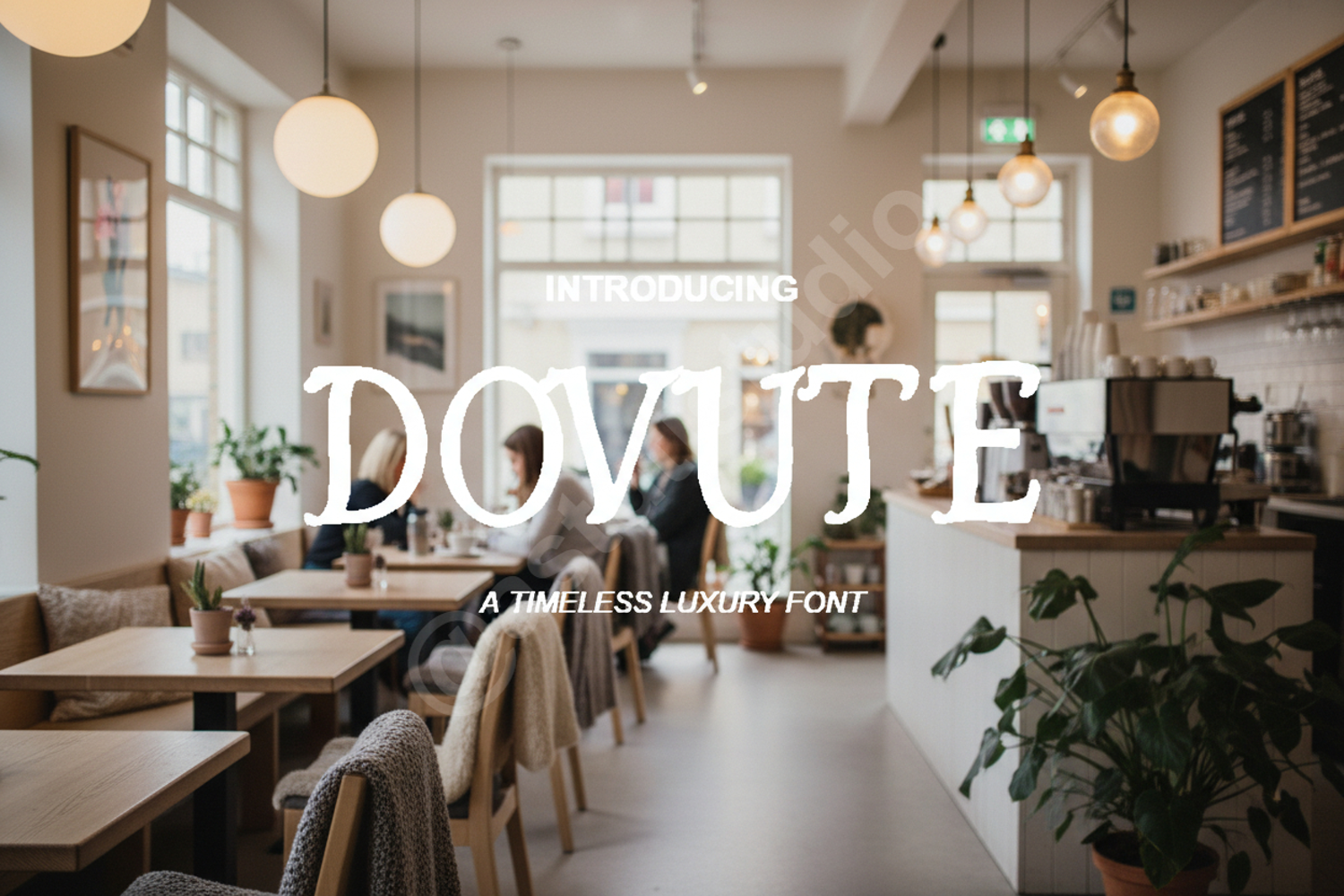
Dovute - Elegant Modern Serif Typeface
Dovute
Dovute is a premium serif typeface meticulously crafted for designers who demand a perfect balance between classic sophistication and contemporary flair. With its refined proportions and clean lines, Dovute brings a sense of high-end luxury and timeless appeal to any creative project.
- Branding and Visual Identity: Create impactful logos and cohesive brand systems that resonate with luxury.
- Editorial Design: Enhance magazine layouts, book covers, and high-fashion spreads with sophisticated typography.
- Wedding Stationery: Add a touch of elegance to invitations, save-the-dates, and event programs.
- Social Media Graphics: Elevate your digital presence with premium-looking quotes and promotional content.
- Product Packaging: Perfect for high-end labels, cosmetic packaging, and boutique retail branding.